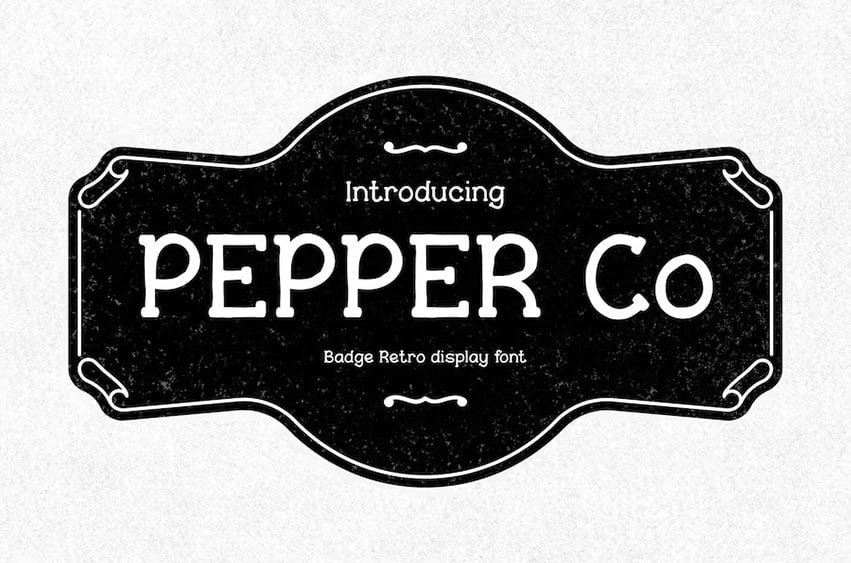
Pepper Co Font Indulge in the raw and edgy allure of Pepper Co, a vintage grunge font that effortlessly captures the spirit of the past. With its rough and textured appearance, this font brings an authentic retro vibe to your designs. Whether you’re creating fashion labels, badges, posters, signage, or promotional materials, Pepper Co adds a touch of nostalgia and character.
Inspired by the artistic movements of Art Deco and the charm of retro design, Pepper Co exudes a unique aesthetic that stands out from the crowd. Its rough edges and distressed elements evoke a sense of authenticity and craftsmanship, perfect for adding a vintage touch to your projects.
Embrace the versatility of Pepper Co as it effortlessly complements various creative endeavors. From filmmaker intros to film industry promotions and YouTube channel art to fashion campaigns, this font adds a distinctive flair that captures attention and tells a story.
Let Pepper Co transport you and infuse your designs with nostalgia. Unleash your creativity and journey to the vintage era with this grunge-inspired font. Elevate your projects and evoke emotions with Pepper Co – the perfect choice for those seeking a timeless and aesthetic appeal.